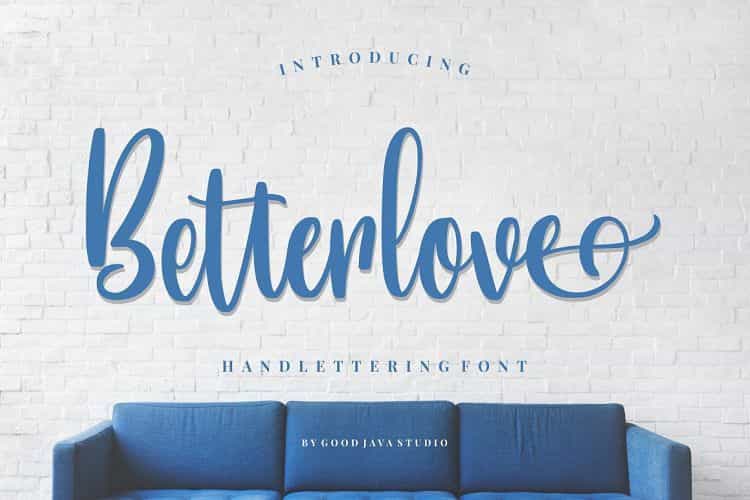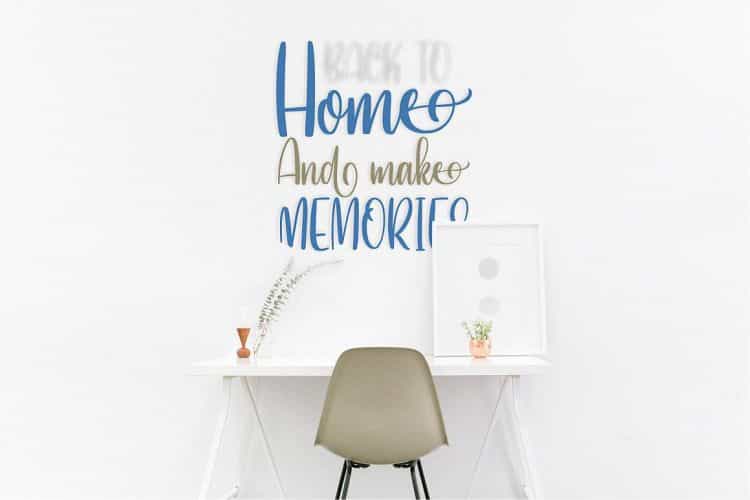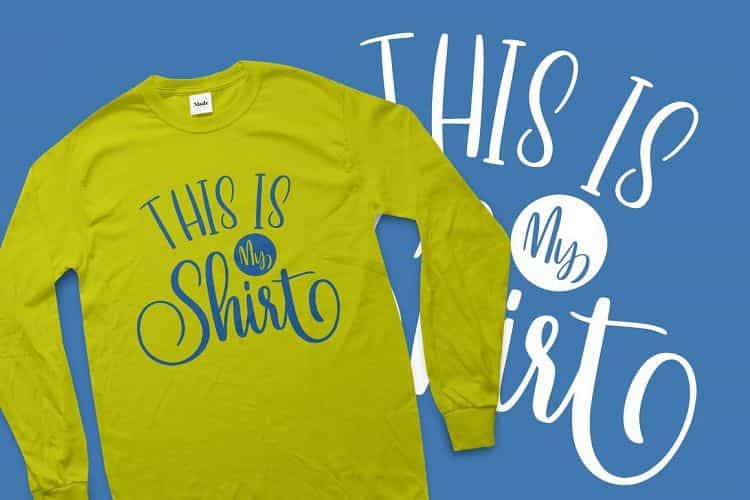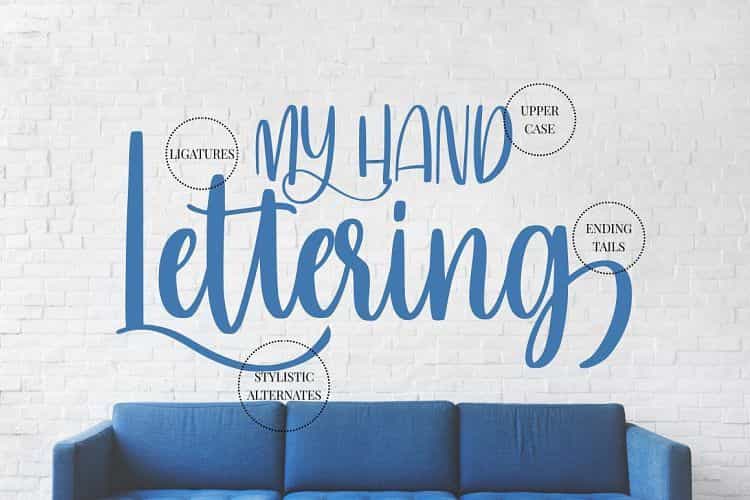
Meet Betterlove Font by Good Java Studio. This is a script font decorated with end and beginning swashes made long in both directions. The set includes a number of lowercase letters, with swashes for alternate forms; numbers and punctuation marks. Also comes OpenType Ligatures and Stylistic Sets. It is ideal, both for invitations to weddings or monograms and can be used well in fashion design branding labels or logos too.